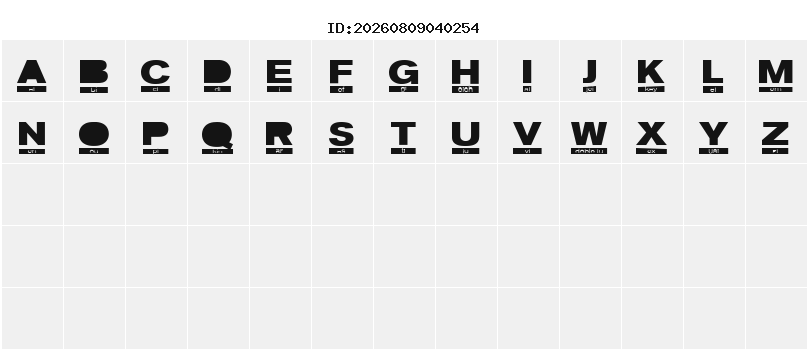
• Font Name: Phonetic
• Designer: G brand.
About Phonetic.ttf
Phonetic.ttf is a modern, elegant sans-serif font designed for ultimate readability and visual harmony. Perfect for branding, headlines, web design, and print materials.